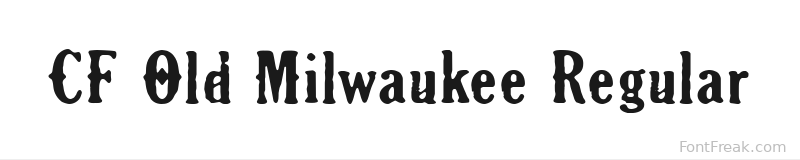
CF Old Milwaukee Regular
About CF Old Milwaukee Regular
CF Old Milwaukee Regular, designed by Cloutierfontes, is a charming display font that captures a vintage aesthetic reminiscent of traditional signage and old-world craftsmanship. This typeface falls under the decorative category, featuring unique visual characteristics that set it apart. The font displays a bold stroke weight with a slightly rough texture, giving it a handcrafted feel. Its characters feature a moderate contrast, lending an inviting appearance while maintaining readability. The spacing is generous, which enhances legibility, making it suitable for various applications.
This font is ideal for a range of creative projects. It shines in wedding invitations, where its rustic charm can evoke a sense of nostalgia and romance. Movie posters also benefit from its distinct personality, particularly for films with themes of adventure or historical narratives. Restaurant menus can utilize CF Old Milwaukee Regular to create a warm, welcoming atmosphere, especially for establishments that embrace a vintage or artisanal vibe. Additionally, it serves well in promotional materials for craft fairs or local markets, appealing to audiences seeking authenticity and a personal touch.
What sets CF Old Milwaukee Regular apart is its ability to evoke a sense of nostalgia while remaining versatile enough for modern applications. Its distinctive design and free availability make the CF Old Milwaukee Regular font free download a valuable resource for anyone seeking to infuse their designs with character and history.